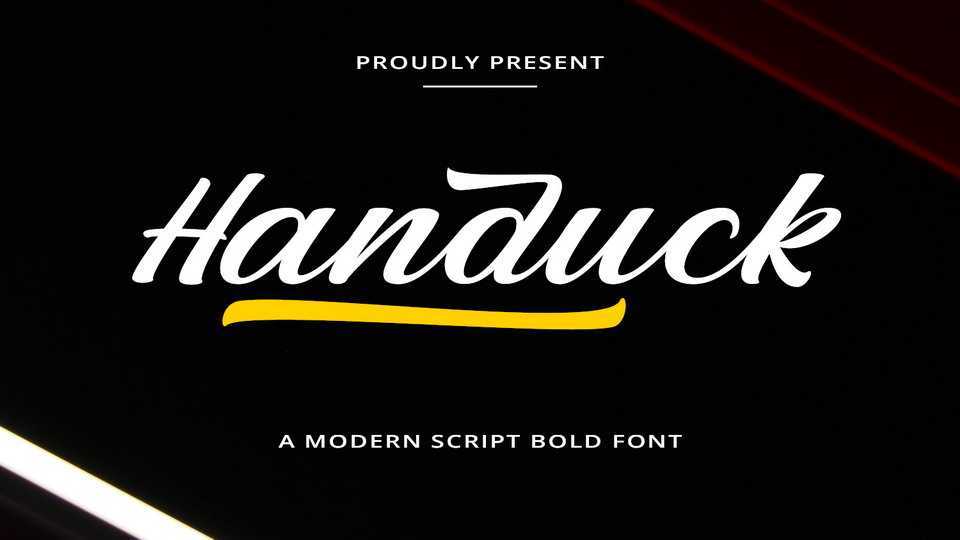
Download Handuck font, a gorgeous and thick, brushed handwritten typeface, crafted to give your headlines and logotype projects a stylish touch.
Designer: Mytype Studio